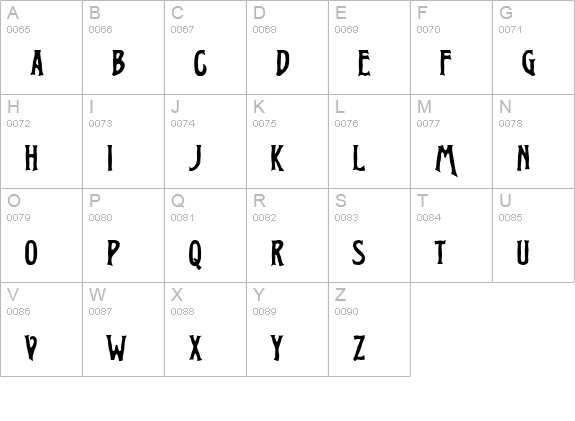
Virile Solid Font Details
Virile Solid font is a captivating typeface that exudes strength and masculinity. Its bold and solid letterforms are meticulously crafted to give your designs a powerful and authoritative presence. The sturdy strokes and robust curves of this font make it perfect for projects that require a bold statement, such as headlines, logos, and branding materials. With its bold and impactful design, Virile Solid font commands attention and leaves a lasting impression. Its strong and confident appearance makes it an ideal choice for projects that aim to make a bold statement or convey a sense of power and authority. Whether you are designing a poster, a website, or a magazine spread, this font will ensure that your message is heard loud and clear. One of the best things about Virile Solid font is that it is freely available to download at FontsMarket.com. This means that you can add this impressive typeface to your font collection without any cost. Its availability as a free font makes it a valuable resource for designers and creatives who are working on a tight budget or looking for high-quality fonts without breaking the bank. So, if you are in need of a font that embodies strength, masculinity, and boldness, look no further than Virile Solid font. Download it for free at FontsMarket.com and add a touch of power and authority to your designs.